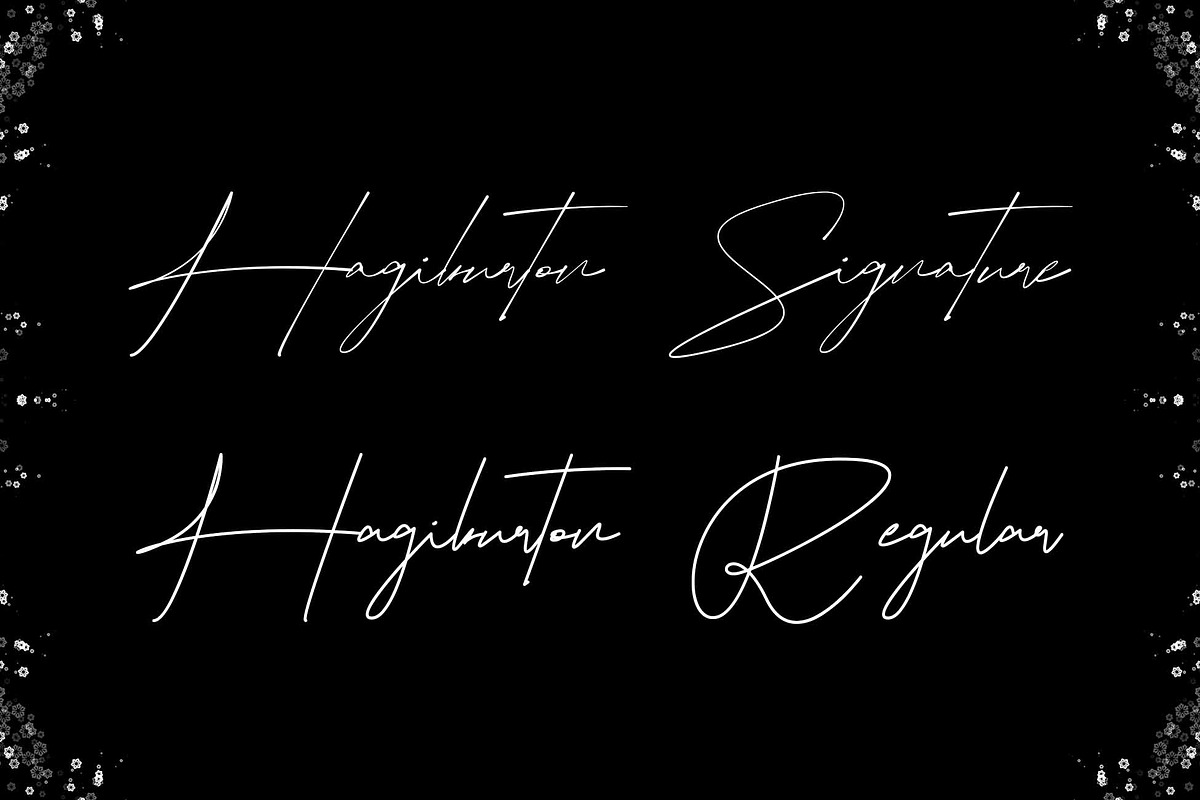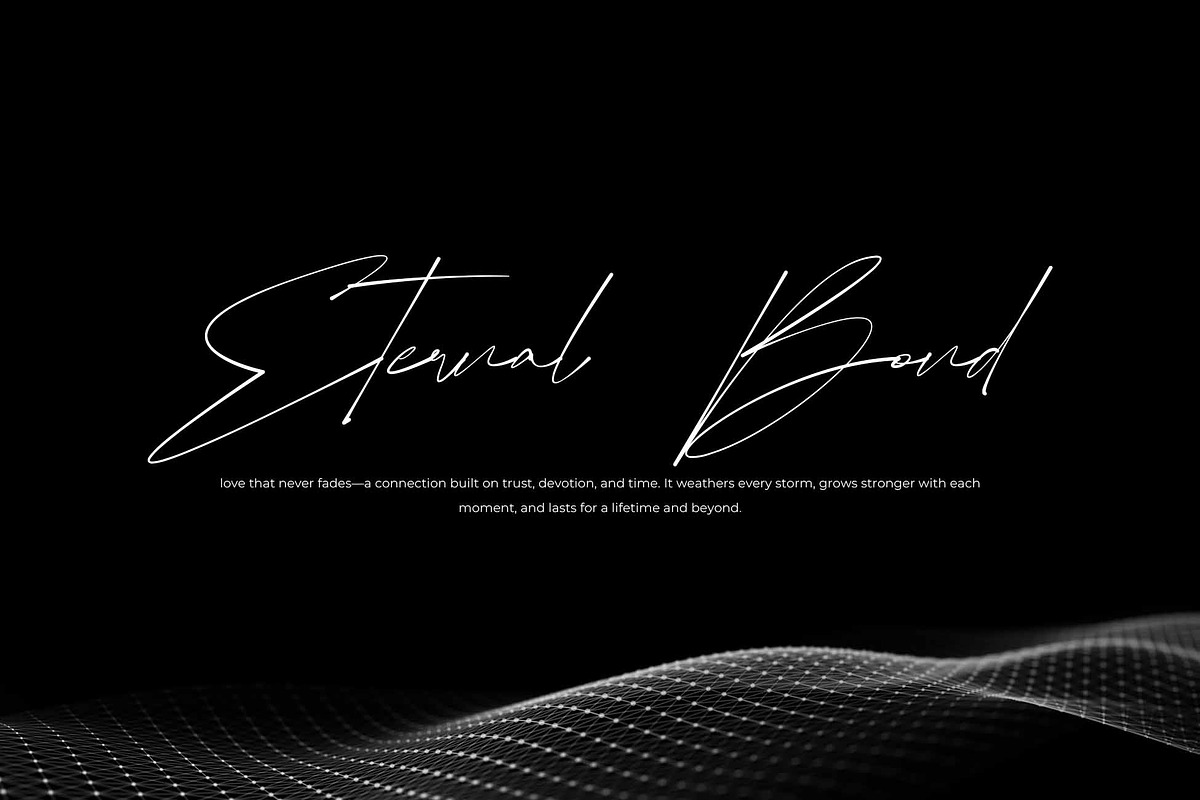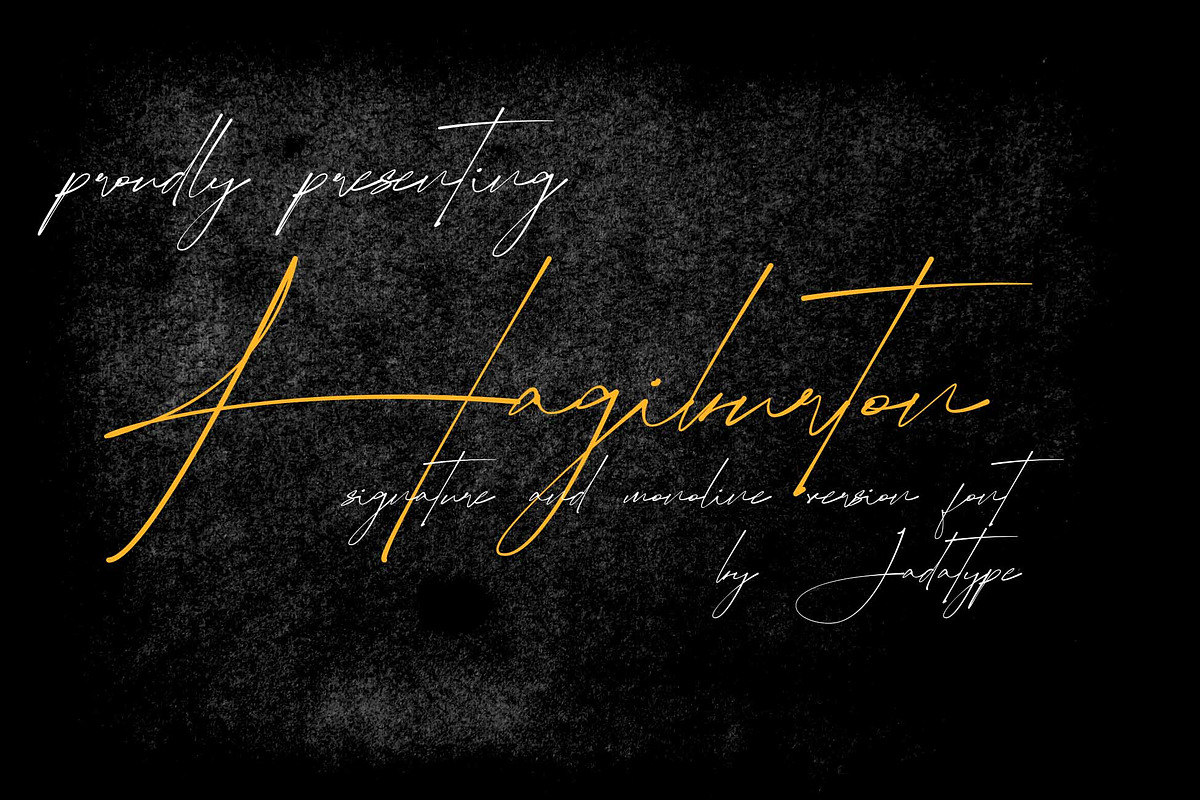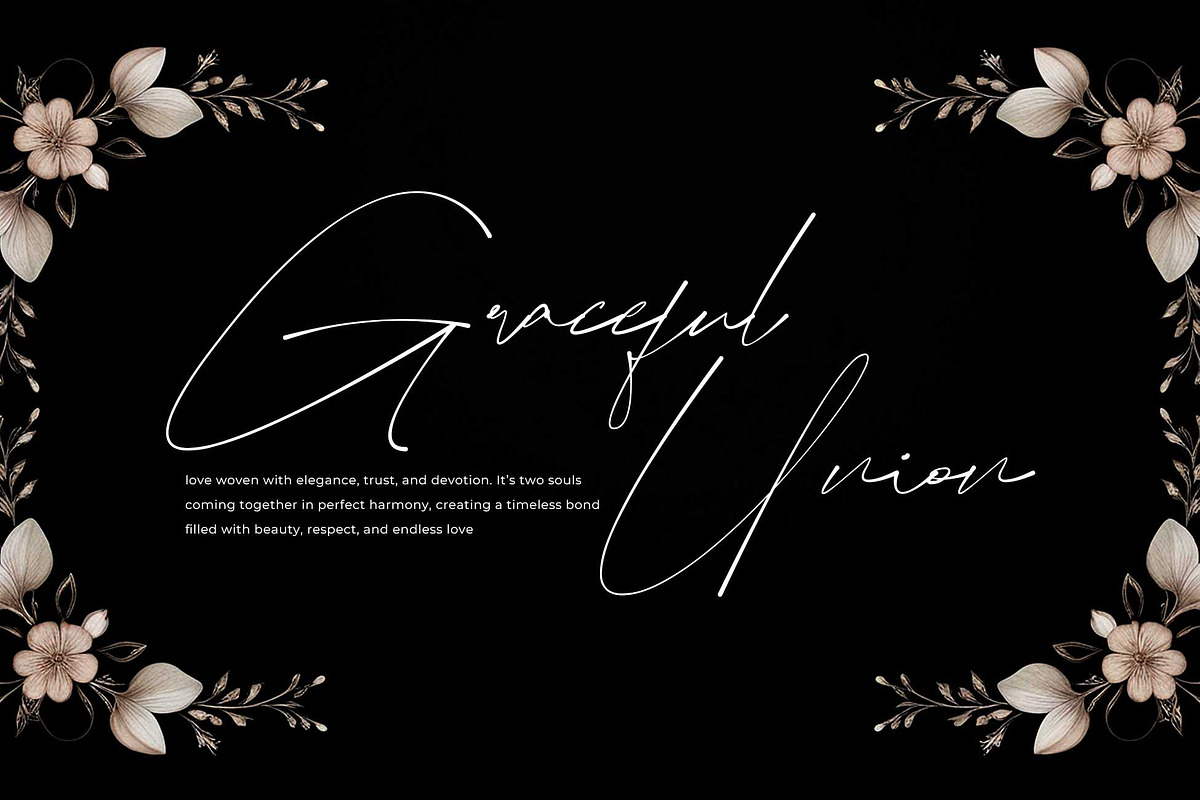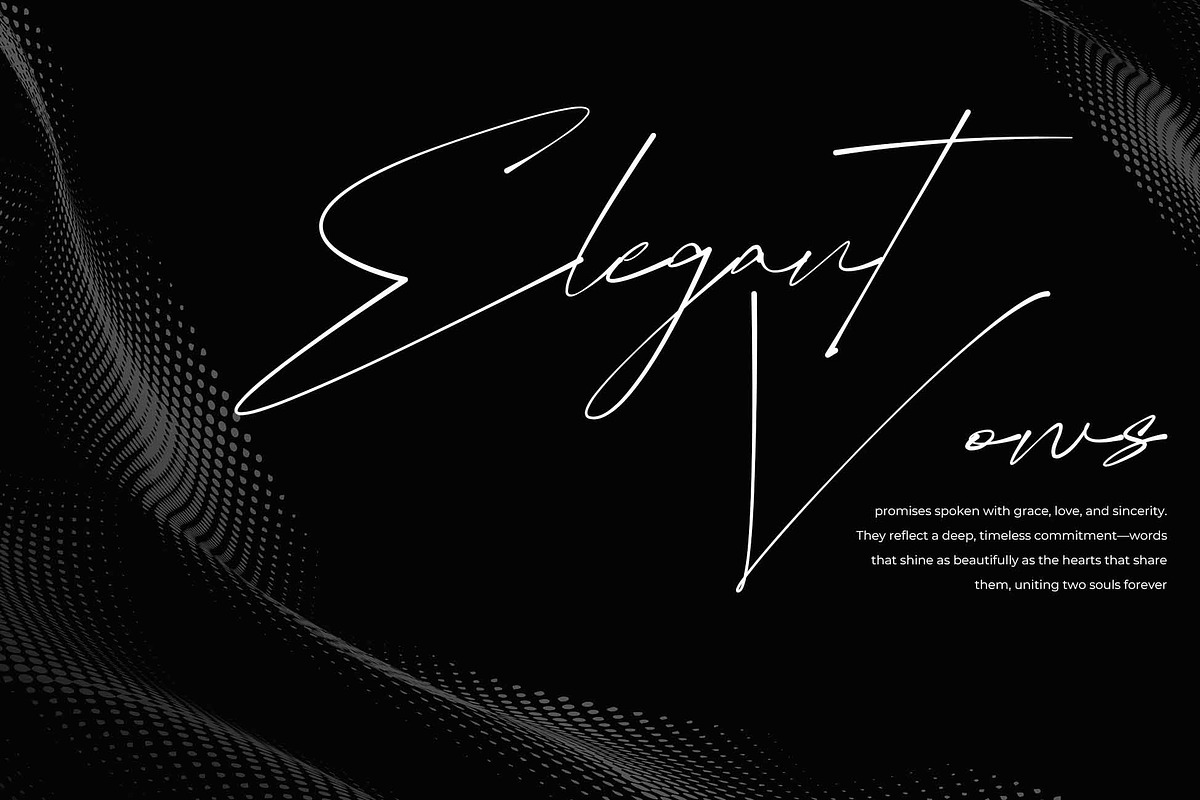
Hagiburton | Stylish Signature
Hagiburton is a font with a Natural signature feel. suitable for branding, logotype, signature, music cover, social media, products, and so on. contains standard English letters, numbers, punctuation, and several accents that support multilingualism.
- Monoline and Signature Version